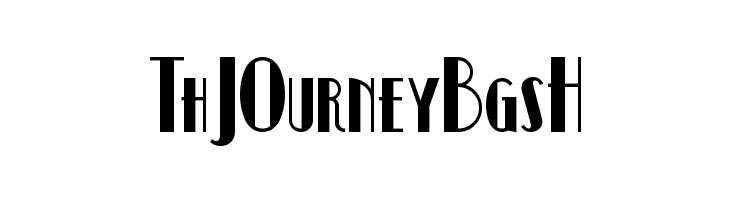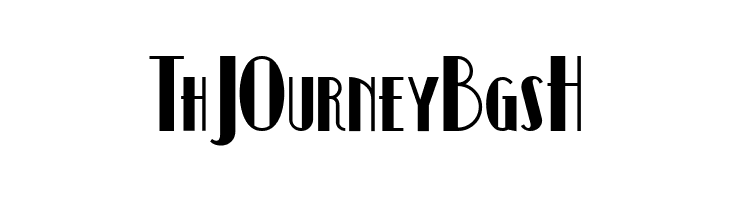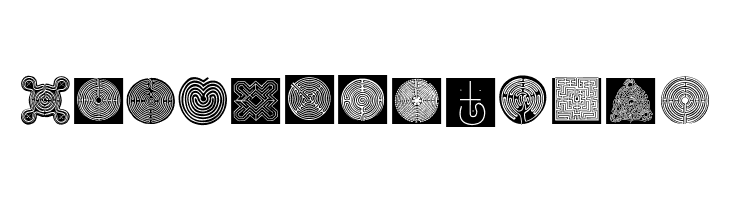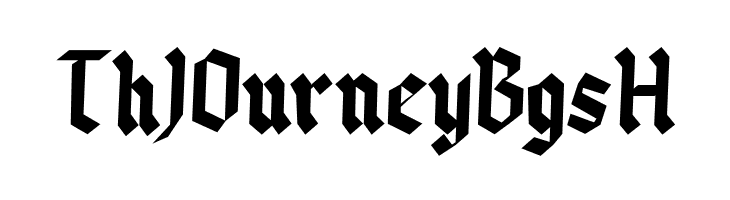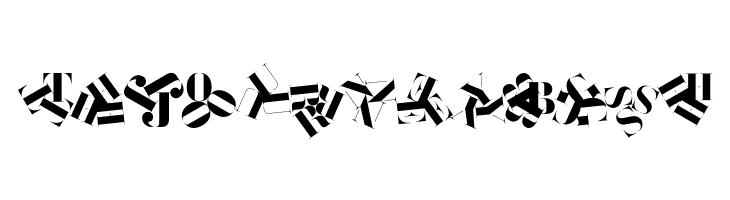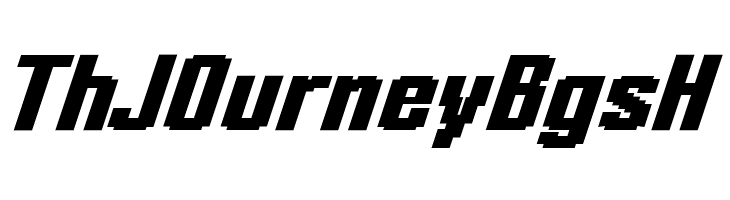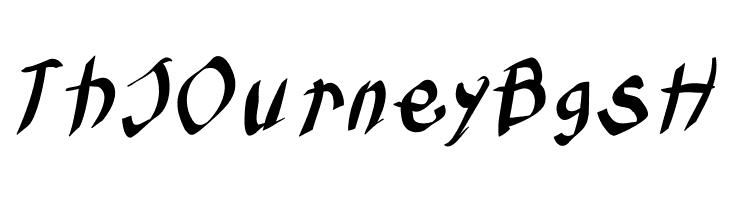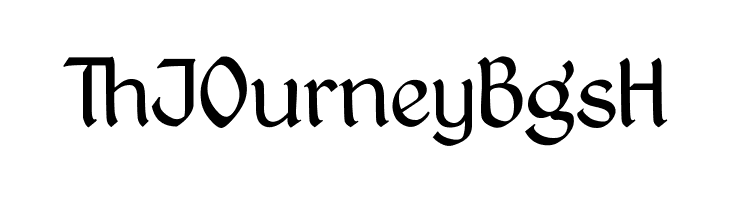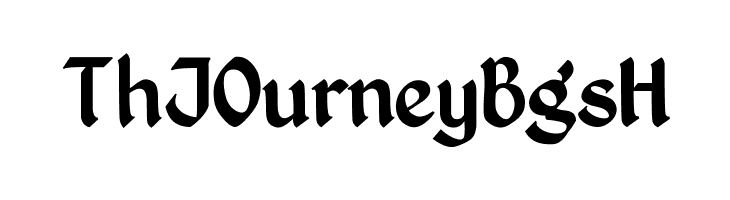
A bold, medieval-style font with sharp, angular edges and decorative details.
A decorative font with medieval influences and angular serifs.
A bold, Art Deco-inspired font with high contrast and elegant, narrow forms.
A bold, Art Deco-inspired font with high contrast and elegant, elongated forms.
An ornamental display font with each character depicted as a unique labyrinth or maze.
A geometric and abstract decorative font with high contrast and dynamic style.
A bold, oblique font with a modern and dynamic style.
A bold, angular Blackletter font with historical elegance.
A bold and expressive script font with fluid, connected strokes.